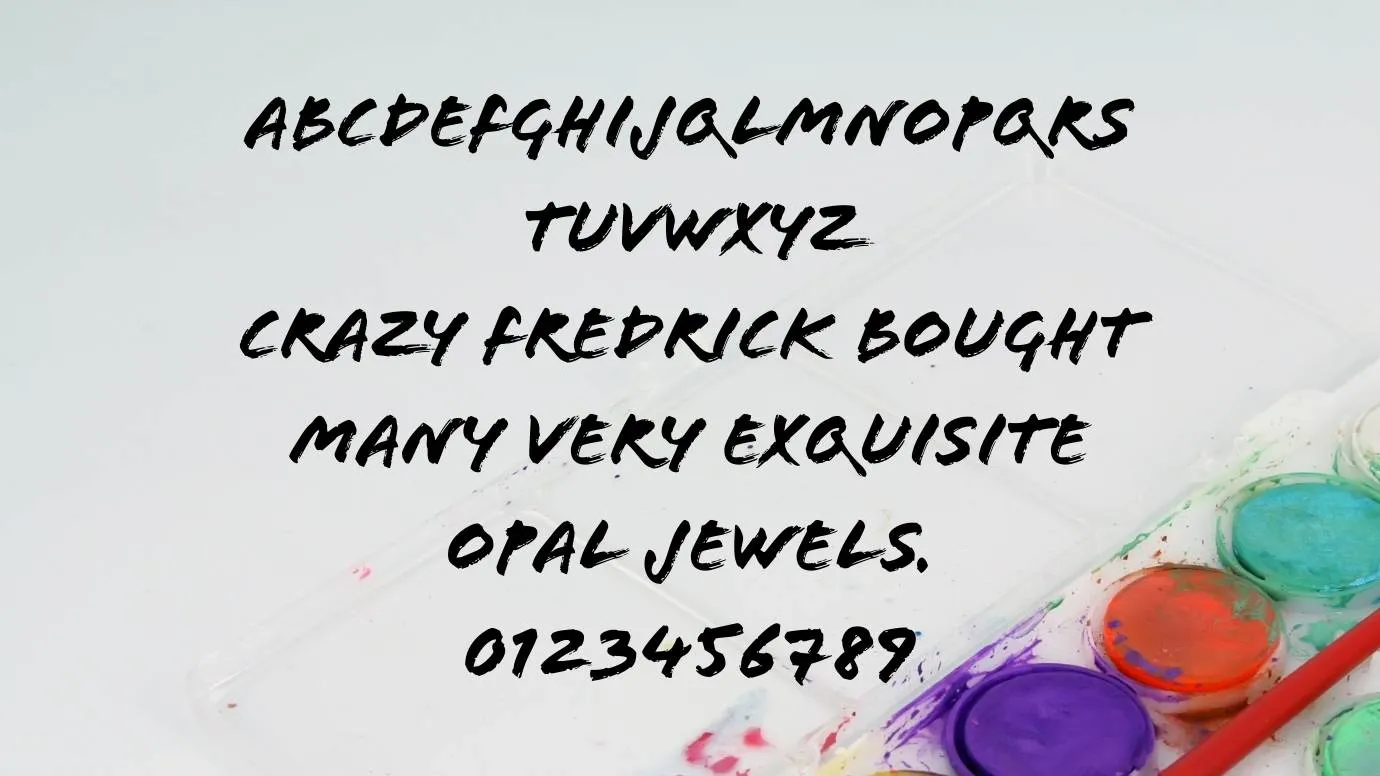
The Flood font is part of the Script font family, characterized by its roman italic style. This typeface falls under the handwritten and calligraphy category and was launched on May 6, 2015. It displays a natural, dynamic, and spontaneous flow similar to writing with a marker tip. When used in larger sizes, this typeface exudes a sense of urgency, immediacy, and stylish detail without being overly dramatic.
This typeface is one of the advanced, fashionable, stylish, and energetic textures. This texture has a regular style with have a total of two hundred and sixty-two glyphs, Moreover, there are one thousand units per EM, Ascender is 662 while Descender is -338 and 1200 heights. This typeface Max Advance width is 1227, the underline thickness is 100.
Designer of Flood Font
This bold calligraphy and handwritten typeface have been designed by Joachim Muler-Lance from Adobe Originals.
This texture has been constructed with a regular style. So, this single regular style feature includes capital alphabets, symbols, small alphabets, digits, glyphs, punctuation, and special characters, as well as language support, which are all included in this single design.
View of Flood Font
| Name | Flood Font |
| Style | Brush |
| Designer | Joachim Muller-Lance |
It can support up to 50 languages.
Italian, Friulian, Cornish, Hiligaynon, Luxembourgish, Malay, Dutch, Occitan, Portuguese, Quechua, Kirundi, Kinyarwanda, Sardinian, Sango, Shona, Somali, Albanian, English, Spanish, Basque, Finnish, Fijian, Faroese, French, Irish, Galician and many more.
What is Flood Font?
This typeface has a bold and creative handwritten font appearance that gives textures of drawing with the thick brush which makes it unique.